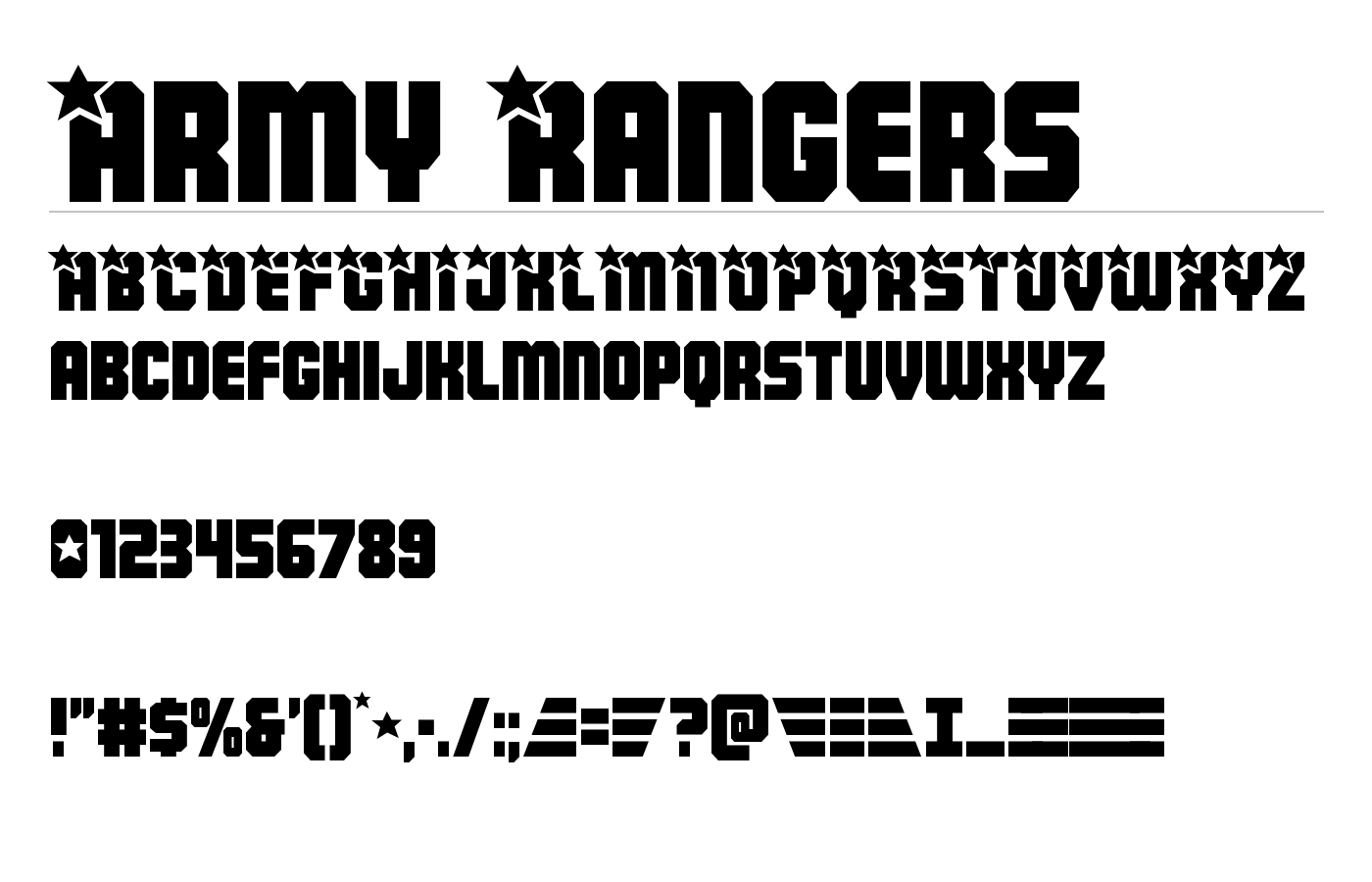
Army Rangers is a bold, condensed sans serif font with a strong military-inspired design. Its heavy weight, blocky letterforms, and star motifs convey toughness and discipline, making it ideal for logos, posters, and branding related to outdoor, tactical, or patriotic themes. This font stands out with its powerful, commanding presence that works best in display uses where impact and ruggedness are key.
Army Rangers Font